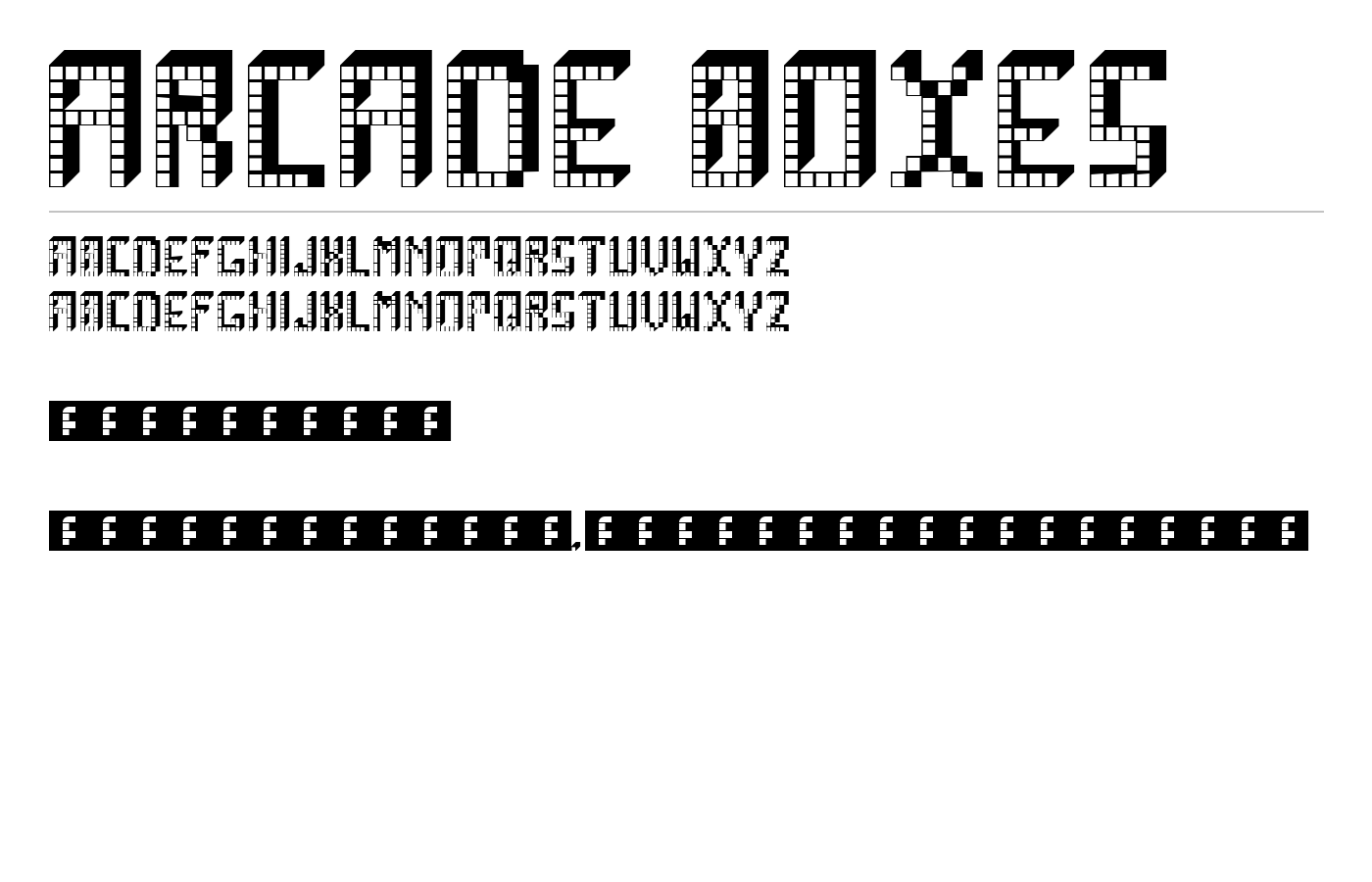
Arcade Boxes is a bold, geometric sans serif font with a pixelated, blocky style reminiscent of vintage video game graphics. Its narrow, condensed letterforms and sharp edges create a futuristic, retro-tech vibe, making it ideal for gaming logos, digital-themed posters, and playful headlines. This font captures a nostalgic yet modern personality, perfect for projects that want to evoke an arcade or tech-inspired atmosphere.
Arcade Boxes Font
About Arcade Boxes Font